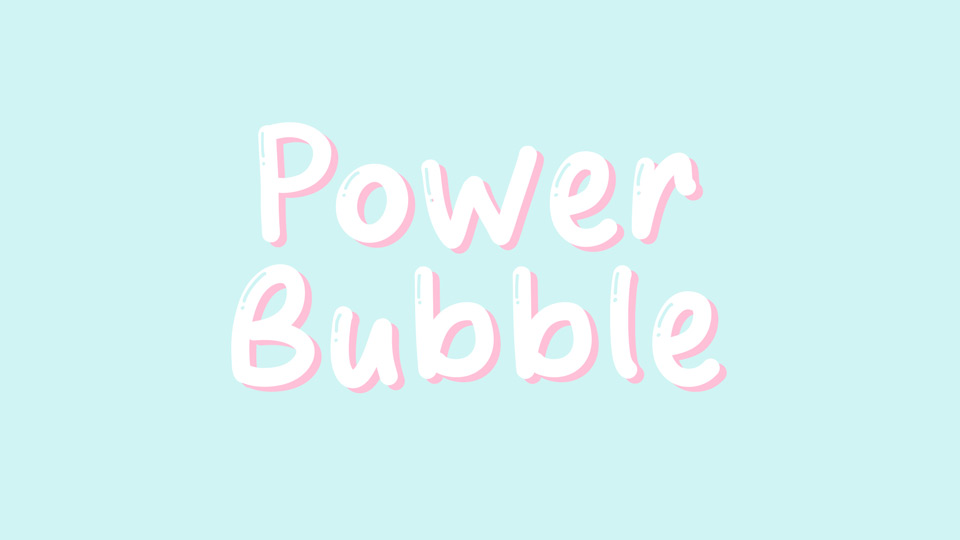
Download Power Bubble font, a simple and casual handwritten typeface with a comic style. The font fits for a comic, novel, book children, quotes, menu, crafts, invitation, logo, etc.